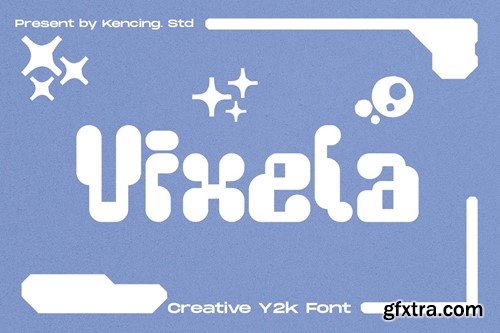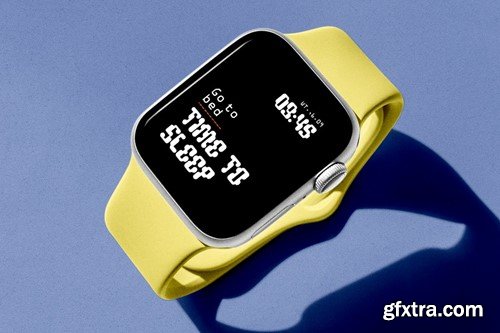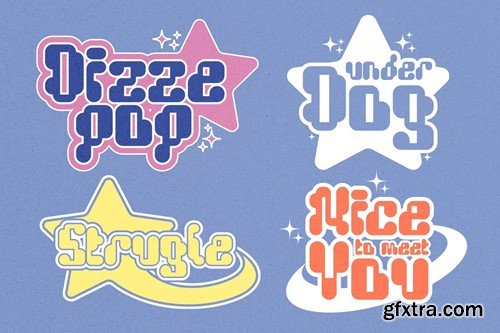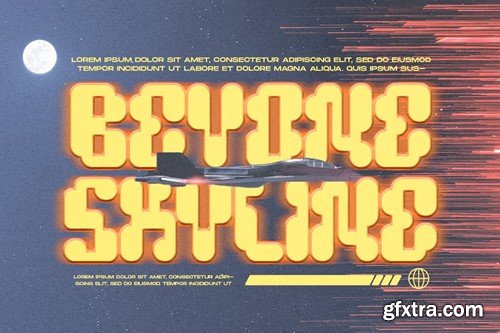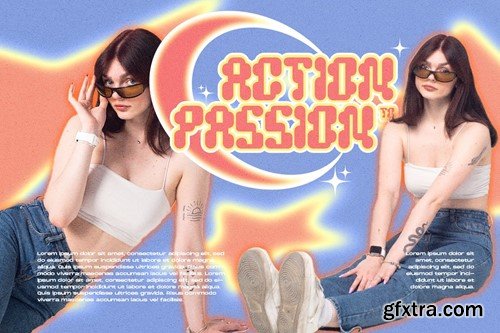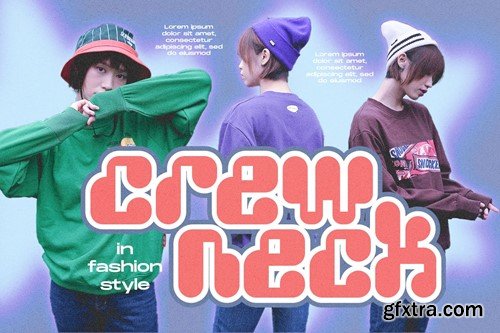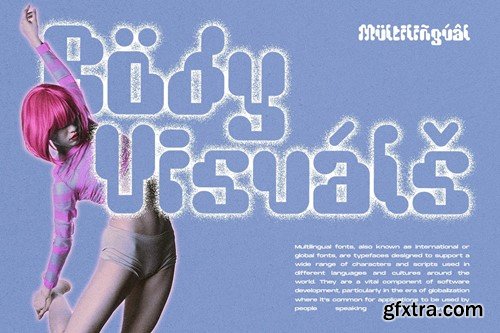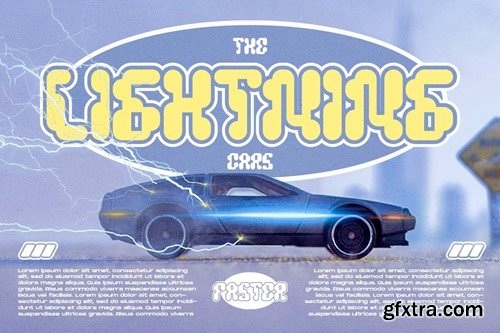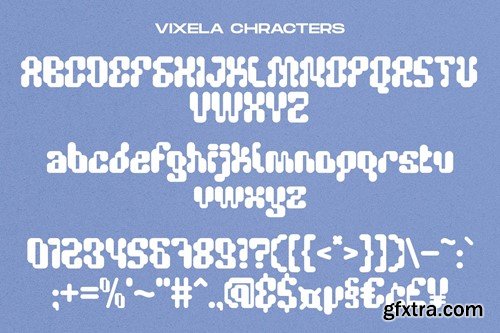
维克利亚 - 现代无衬线像素字体 S5VHDRQ
Vixela is a real head turner. It is a modern take on a retro digital era font! With Vixela, you can you’re your project look unique. A type of font with it’s bold and unique shaped font, will make your design catches their eyes. This typeface is a perfect for branding, Instagram, print, posters, logos, magazines, headlines and more! This font hits on 90's and early 2000's nostalgia in a big way adding a playful bold fun take on the Y2K trend. Get Vixela to make your design looks lit! Vixela font will also include some features : Kindly do contact us if you have any questions, For more exclusive font, kindly please visit our studio “Kencing Studio” Enjoy crafting and make your ideas come to life! Thank you, Kencing Studio